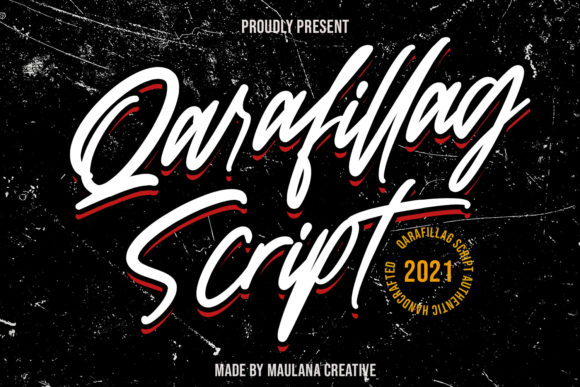
Qarafillag Script: The Handwritten Font That Commands Attention
There's a particular quality in some handwritten fonts that goes beyond mere letterforms. It's a sense of presence, a visual voice that doesn't just display words but speaks them. Qarafillag Script is precisely this kind of typeface. It's not a timid, whispering script; it's a sophisticated and bold handwritten font engineered to deliver any message with an inherent confidence, authenticity, and undeniable charm. For designers, entrepreneurs, and creators, this is more than a font—it's a strategic design asset that can fundamentally shift the tone of a project from generic to genuinely compelling.
The Visual Personality: More Than Just Letters
At its core, Qarafillag Script presents a balanced duality. It possesses the fluid, organic flow of natural handwriting, complete with subtle variations in stroke weight that give it life and movement. Yet, this is carefully controlled. The letterforms are grounded with a confident structure, avoiding the chaos of truly erratic handwriting. You'll notice elegant connections between letters, creating a seamless, rhythmic quality that guides the eye along the baseline. The overall effect is one of curated spontaneity—it feels personal and crafted, not manufactured. This makes it a powerful display font that carries significant emotional weight without sacrificing legibility for its intended purpose.
Its style sits in a compelling space. It's not a formal, traditional script font you might find on a wedding invitation. Nor is it a casual, bubbly marker font. Qarafillag Script occupies a more modern, versatile middle ground. It has the flair for logo design and branding, the readability for short-form editorial design, and the personality for packaging design. This versatility is its greatest strength, allowing it to adapt to contexts that demand both elegance and approachability.
Where Confidence Meets Craft: Practical Applications
Understanding where Qarafillag Script excels is key to leveraging its full potential. Think of it as your go-to for projects that need a human touch with a professional edge.
In the realm of brand identity, this font shines. For a boutique coffee roaster, artisan baker, or independent consultancy, it can form the core of a logo, instantly communicating handcrafted quality and personal service. Paired with a clean sans serif font for body copy, it creates a dynamic and readable hierarchy. For social media graphics, where grabbing attention in a fraction of a second is critical, a headline set in Qarafillag Script can stop the scroll, adding a layer of authenticity that sterile, overused fonts cannot.
For print and packaging, its value is equally pronounced. Imagine product labels for small-batch sauces, cosmetics, or craft goods. The font's character reinforces the product's story, suggesting care and individuality. On greeting cards, event invitations, or book covers (for certain genres like contemporary romance or memoir), it provides the right amount of emotional resonance. Even in web design, used sparingly for featured quotes, special announcements, or hero section call-to-action text, it can break the monotony of standard web fonts and inject personality.
Strategic Font Pairing and Readability Considerations
Integrating any premium font effectively requires more than just liking its look. With a bold script font like Qarafillag Script, the principle of contrast is your best friend. Its strength is in headlines, logos, and pull quotes—not in setting long paragraphs of body text. The visual complexity that makes it appealing can cause fatigue if overused.
The most reliable strategy is pairing. Combine it with a highly legible, neutral serif font for body text in editorial layouts to create a classic, authoritative feel. Alternatively, team it with a geometric or humanist sans serif font for a more modern, clean contrast. The key is to let Qarafillag Script be the star of the show in the hierarchy, supported by a stable, readable partner. Always test your pairings at various sizes to ensure the script remains legible at smaller scales and that the overall combination feels cohesive.
Before finalizing, review the specific styles and glyphs included with the Qarafillag Script typeface. Many creative fonts include stylistic alternates, ligatures, or swashes that can add unique flair to specific letter combinations. Exploring these options allows for even more customization and ensures your design feels truly tailored. Furthermore, for any commercial project, verify the licensing of this commercial font to ensure it covers your intended use, whether for digital products, merchandise, or client work.
Elevating Your Message with Authenticity
Ultimately, the choice of a typeface is a choice of voice. Qarafillag Script offers a voice that is assured, charismatic, and relatable. It doesn't just decorate a message; it amplifies it. By understanding its visual personality, applying it to the right contexts, and pairing it thoughtfully, you move beyond simply making something look good. You begin to craft experiences, build recognition, and engage your audience on a more human level. In a digital landscape saturated with uniformity, a font with this kind of bold, authentic character isn't just an option—it's a strategic tool for standing out.